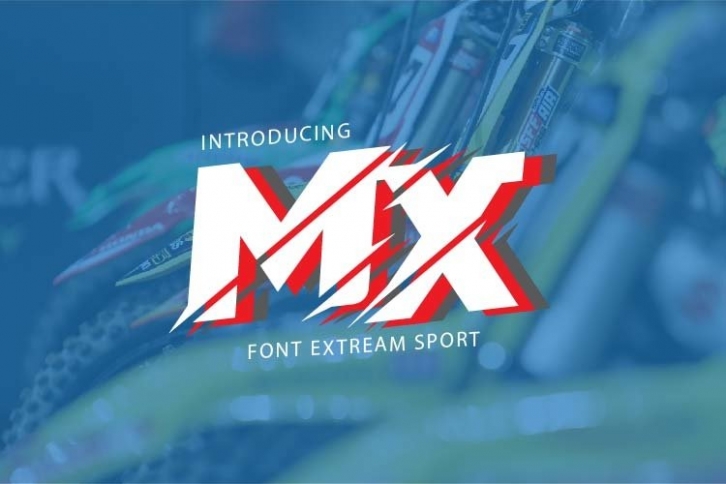
MX sport is a gorgeous font that was realeased on June 21, 2020. The font can be used in many style contexts and design environments. Perfect for invitations, magazines, websites, logos, and more! It was designed by waptype1 and the file size is 8.58 MB. Thanks for checking out this font!